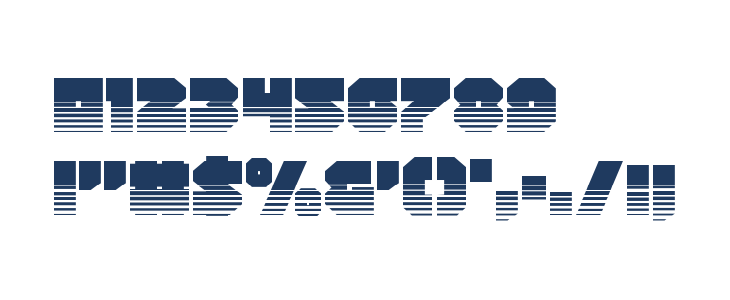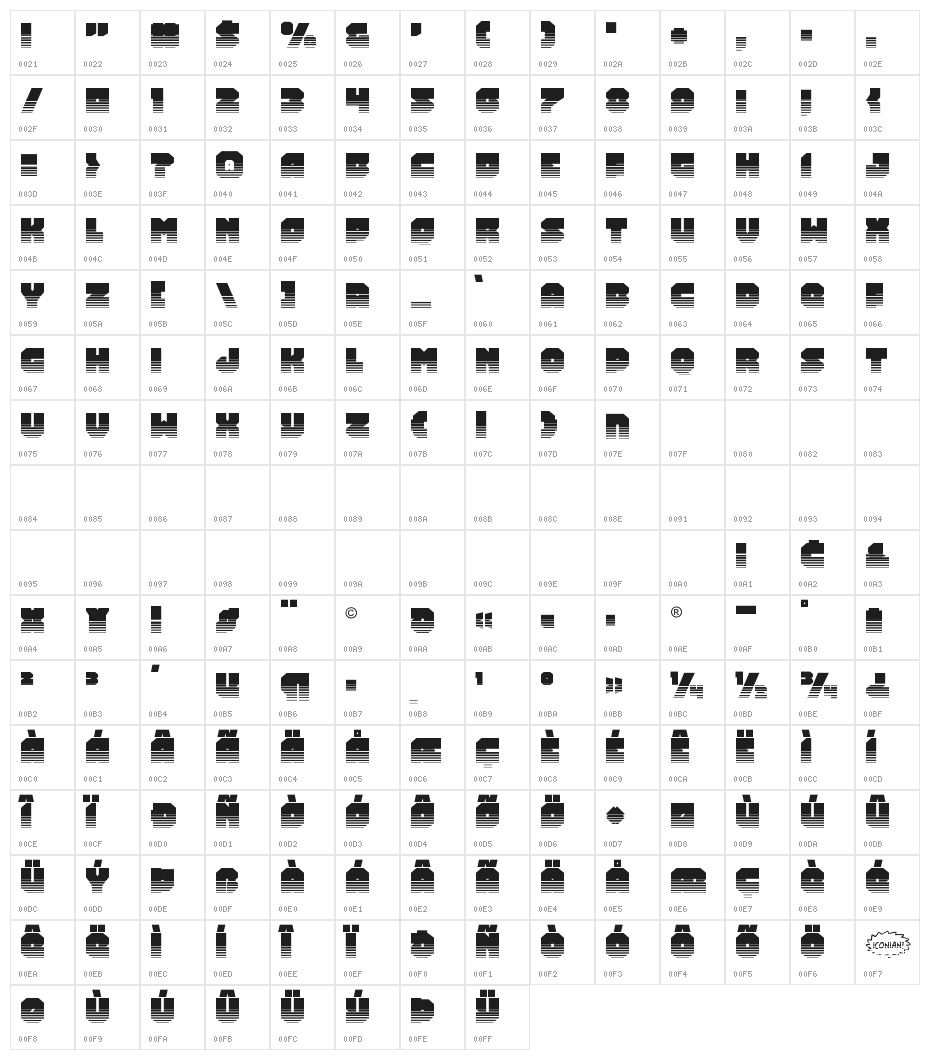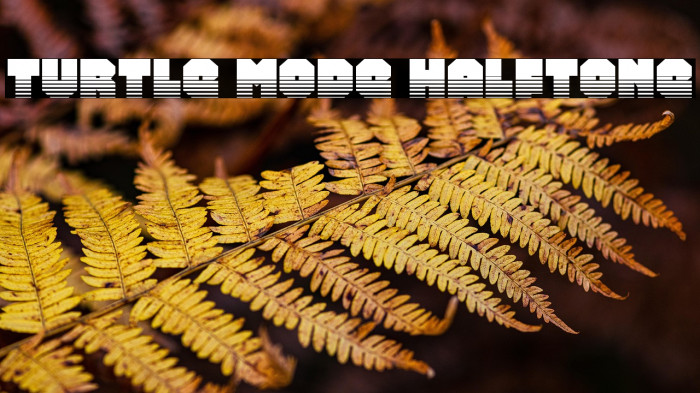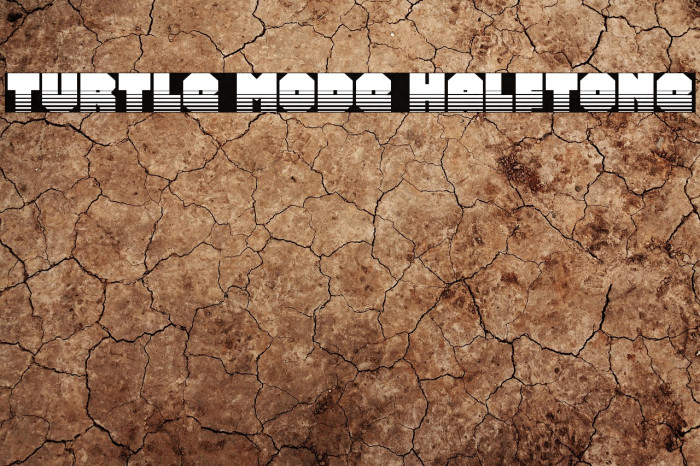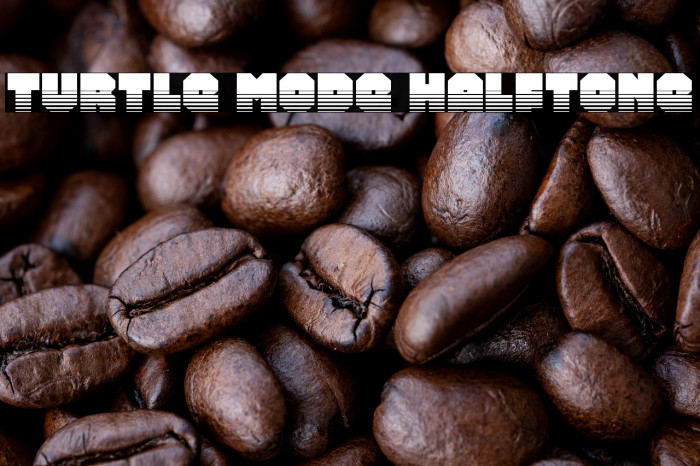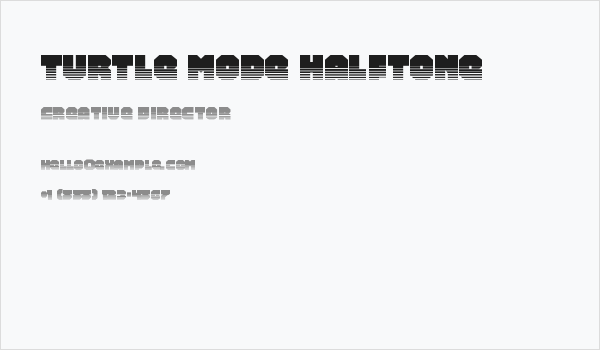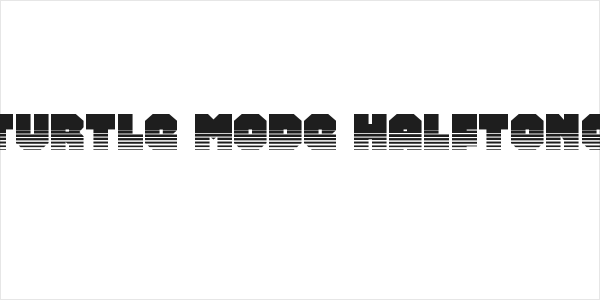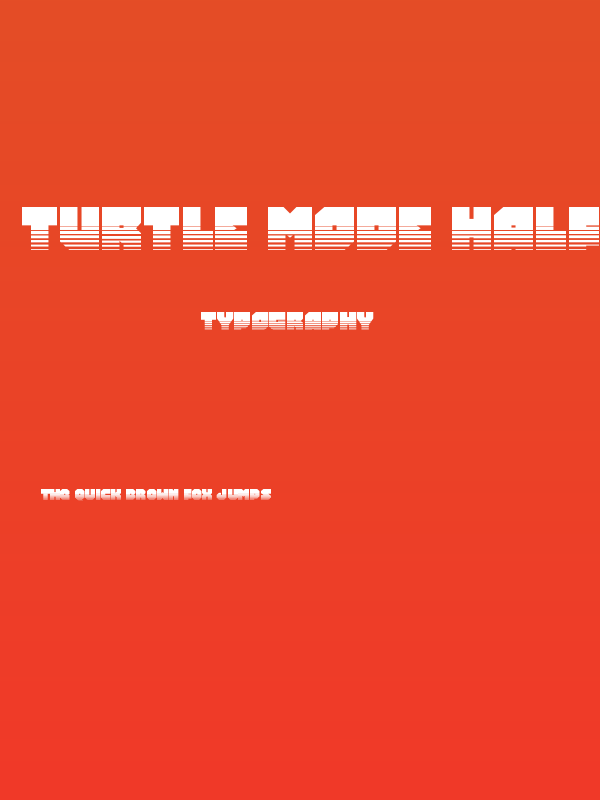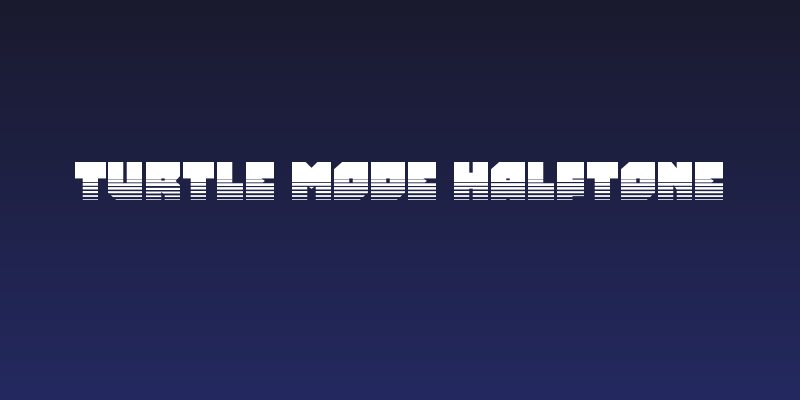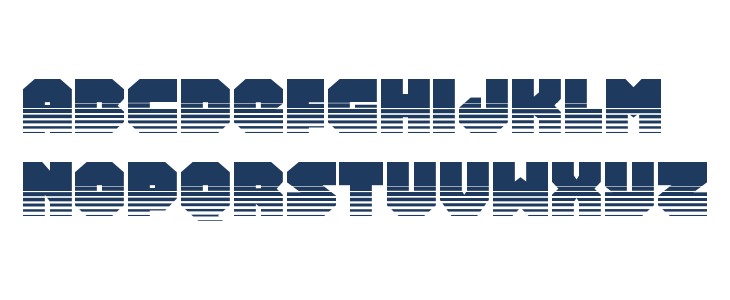
Turtle Mode Halftone Font
Turtle Mode Halftone Description
This font features a bold, geometric design with a unique halftone effect. Each character is constructed with horizontal lines that create a striking visual impact, reminiscent of digital or retro styles. The uppercase and lowercase letters maintain a consistent width, giving the font a uniform appearance. The numbers and special characters are designed with the same halftone pattern, ensuring cohesion across all elements. This font's distinct style makes it ideal for projects that require a modern and edgy look, such as digital art, posters, and branding materials.